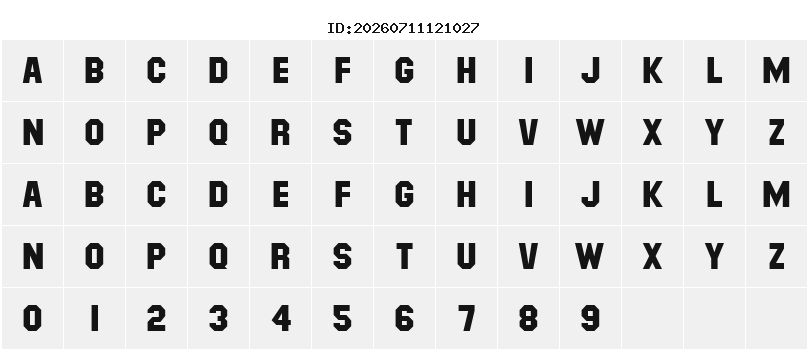
Masheen Preview
• Font Name: Masheen
• Full Font Name: Masheen Bold
About Masheen.ttf
Masheen.ttf is a modern, elegant sans-serif font designed for ultimate readability and visual harmony. Perfect for branding, headlines, web design, and print materials.